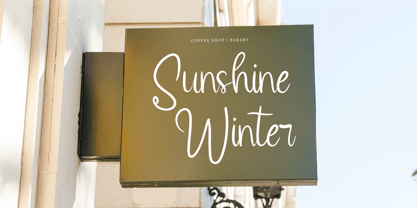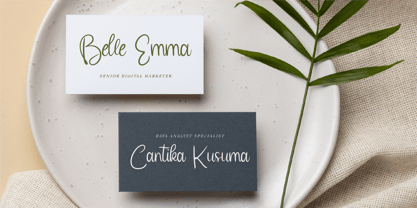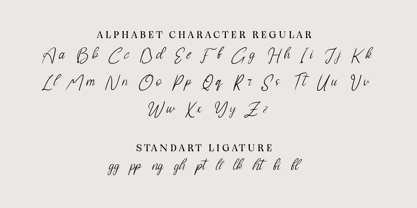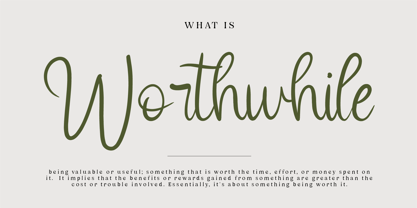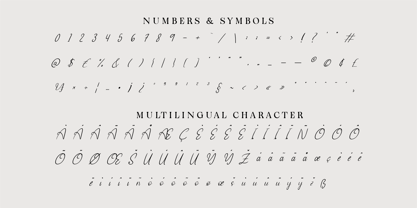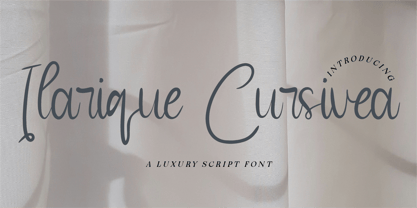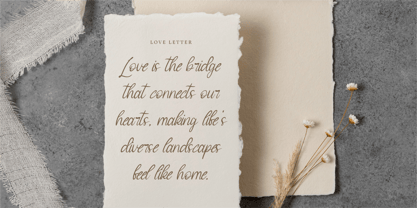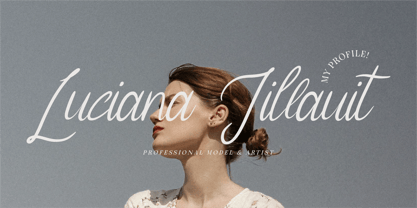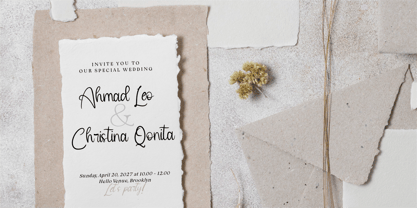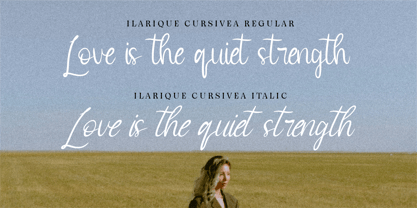
Ilarique Cursivea – A Timeless Luxury Script Font
Indulge in the refined beauty of Ilarique Cursivea, a sophisticated luxury script font that exudes grace, elegance, and effortless charm. With its delicate curves, fluid strokes, and exquisite letterforms, this typeface is designed to bring a touch of high-end sophistication to your creative projects.
Perfect for wedding invitations, upscale branding, editorial designs, fashion labels, and luxury product packaging, Ilarique Cursivea captures the essence of modern refinement while maintaining a beautifully handcrafted feel. The balanced contrast and airy flow make every word look effortlessly stylish and polished.
Why Choose Ilarique Cursivea?
✨ Timeless Elegance: A sophisticated script that embodies luxury and class.
💎 Fluid & Graceful: Soft, natural strokes that create a harmonious flow.
🎀 Perfect for Premium Branding: Ideal for wedding stationery, fashion, and beauty industries.
🖋 Exquisite Readability: Designed for both beauty and clarity, making it versatile for any high-end project.
- Standard Character A-Z, a-z, 0-9, Punctuation & symbols
- Regular and Italic